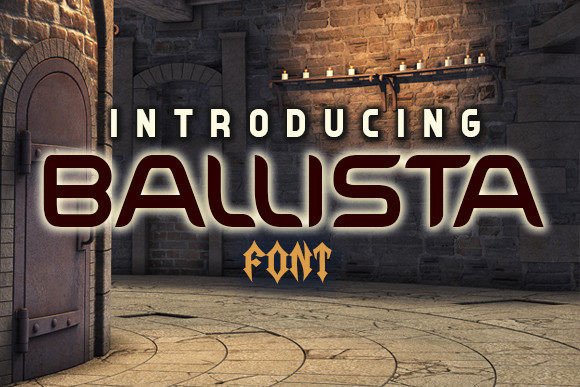
Introducing Ballista Font - The Ultimate Weapon for Captivating Designs!
Prepare to unleash the power of Ballista, a display font family that will transform your designs into cinematic masterpieces. Each character is meticulously crafted to evoke the grandeur and impact of a blockbuster movie poster.
Whether you're creating posters, flyers, or banners, Ballista will elevate your designs to new heights. Its bold strokes and striking presence will grab attention and leave a lasting impression.
Imagine your movie poster emblazoned with the enigmatic Ballista font, inviting viewers to embark on an epic journey. The font's sharp edges and dynamic curves will convey the excitement and adventure that lies within.
With Ballista, your designs will soar above the ordinary, leaving an unforgettable mark on your audience. Unleash your creativity and witness the transformative power of this extraordinary font.
So, if you seek to create designs that captivate, inspire, and ignite the imagination, look no further than Ballista. Its bold presence and cinematic appeal will turn your designs into instant classics.